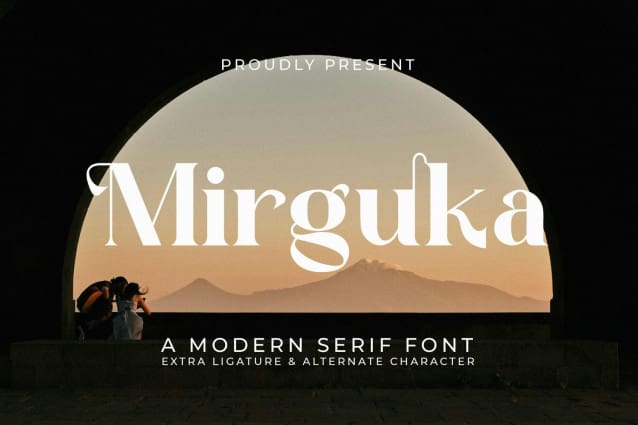
Mirguka Font
Mirguka Font – A Modern Serif Font, from Jeritype Studio, is a premium A Modern Serif font, perfect for any project requiring a distinctive, high-end touch.